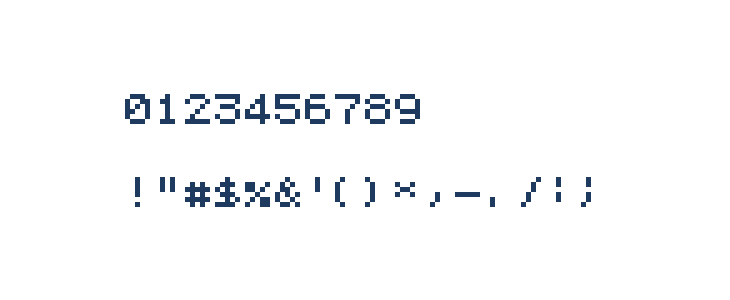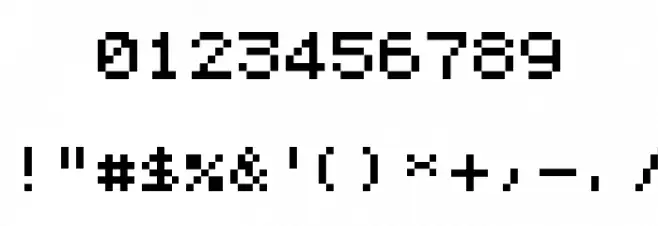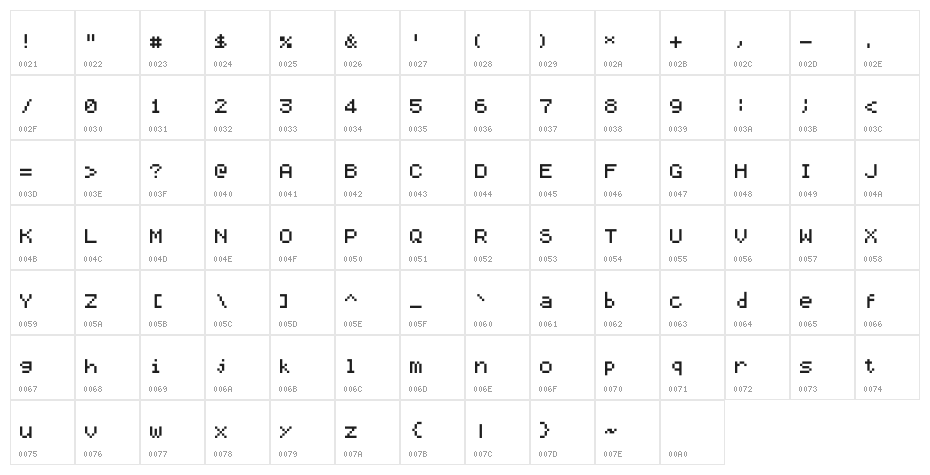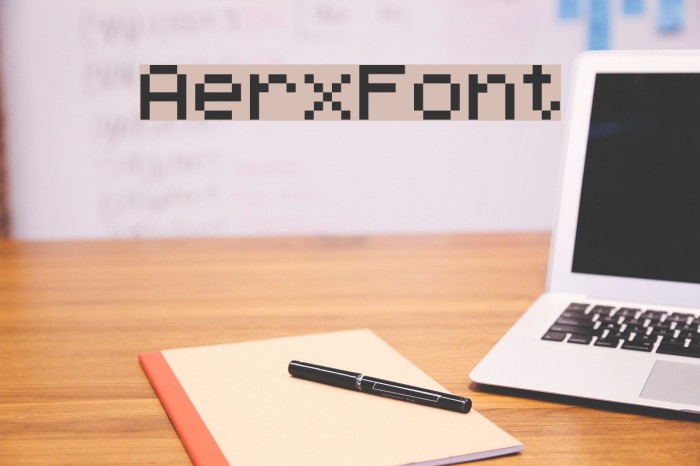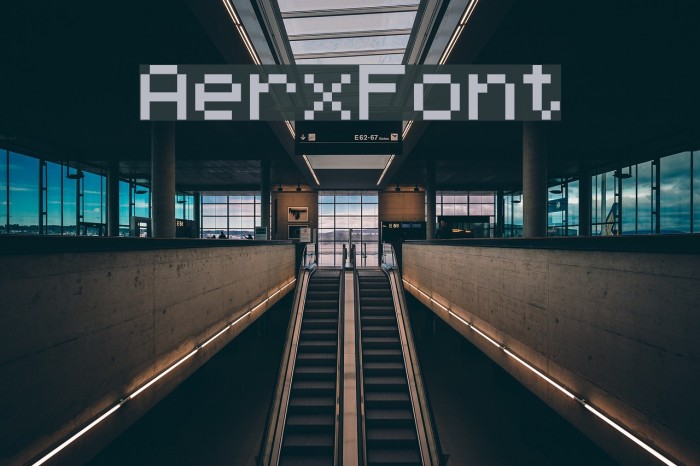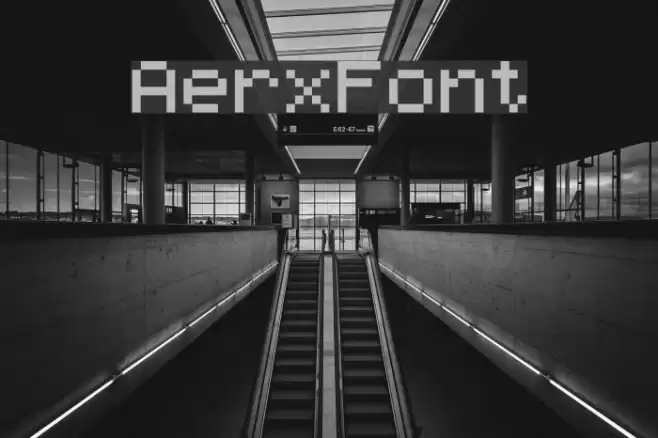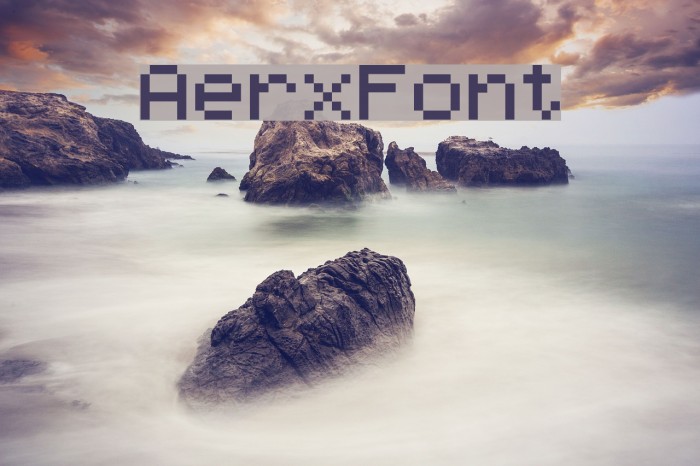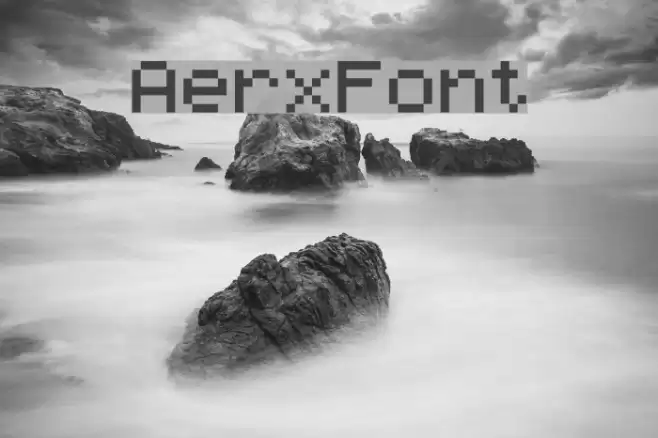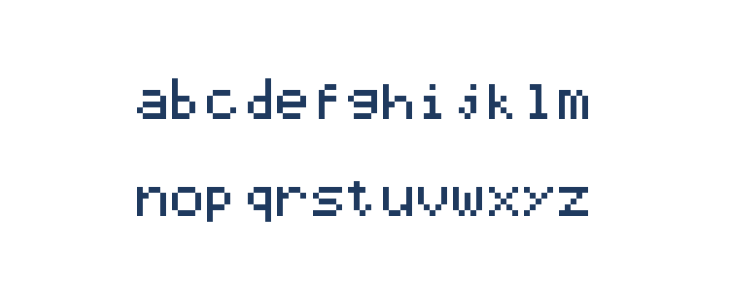
AerxFont Font
AerxFont Description
This font features a pixelated, blocky design reminiscent of early digital displays and retro video games. Each character is constructed with a grid-like precision, giving it a distinctly digital and geometric appearance. The uppercase and lowercase letters maintain a uniform height, contributing to a monospaced feel. The numbers and special characters follow the same pixelated style, ensuring consistency across all glyphs. This font's nostalgic aesthetic is perfect for projects that aim to evoke a sense of the early computing era or retro gaming culture.
| Use Case | Logos, Headlines, Digital Art |
| Proposed Projects | Ideal for retro video game designs, digital art projects, tech-themed posters, and nostalgic branding. |